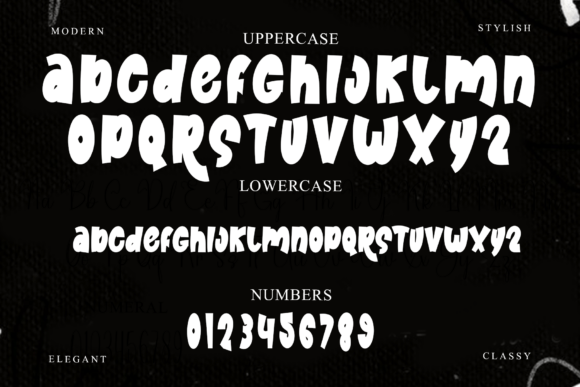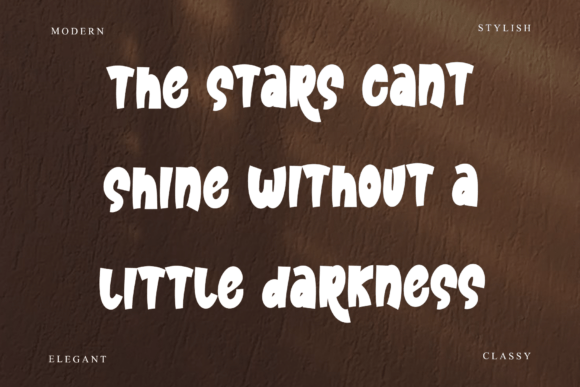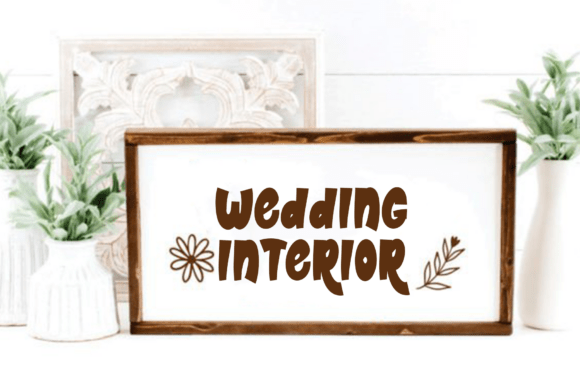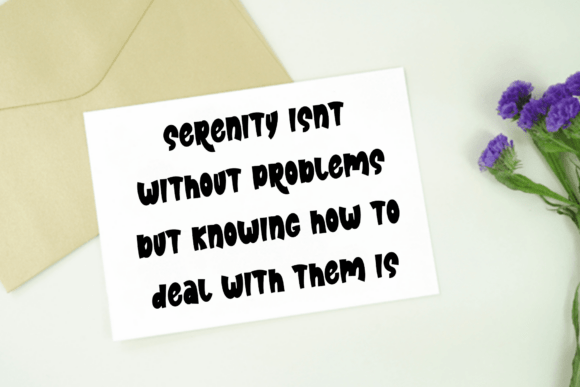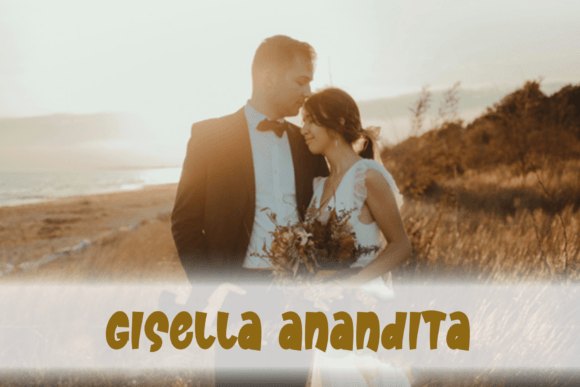
Introducing Course Font: The Perfect Blend of Casual and Creative
Are you tired of using the same old fonts for your personal projects, invitations, and social media graphics? Look no further than Course Font, a charming and creative typeface that exudes warmth and friendliness. With its round, playful strokes, Course Font creates a relaxed and approachable feel that’s perfect for designers and crafters looking to add a personal touch to their work.
The Characteristics of Course Font
Course Font is a hand-drawn font that boasts a unique and fun aesthetic. Its casual and creative design makes it ideal for a wide range of applications, from personal projects and invitations to social media graphics and more. The font’s round, playful strokes create a sense of warmth and approachability, making it perfect for designers and crafters who want to add a personal touch to their work.
What Makes Course Font Special?
Course Font is a versatile font that’s perfect for designers and crafters who want to add a personal touch to their work. Whether you’re creating social media graphics, invitations, or personal projects, Course Font is the perfect choice. Its charming, hand-drawn aesthetic adds a fun and unique touch to any design, making it stand out from the crowd.
Benefits of Using Course Font
- Unique and Creative Design: Course Font boasts a unique and creative design that’s sure to make your work stand out.
- Versatile: Course Font is perfect for a wide range of applications, from personal projects and invitations to social media graphics and more.
- Warm and Friendly Feel: Course Font’s round, playful strokes create a warm and friendly feel that’s perfect for designers and crafters who want to add a personal touch to their work.
Tips and Tricks for Using Course Font
- Experiment with Different Sizes and Colors: Course Font looks great in a wide range of sizes and colors. Experiment with different combinations to find the perfect look for your design.
- Pair with Other Fonts: Course Font pairs well with other fonts, making it easy to create unique and creative designs.
- Use for Headings and Titles: Course Font is perfect for headings and titles, adding a touch of personality and whimsy to your design.
Course Font is a charming and creative typeface that’s perfect for designers and crafters who want to add a personal touch to their work. With its unique and creative design, ease of use, and versatility, Course Font is the perfect choice for a wide range of applications. Whether you’re creating social media graphics, invitations, or personal projects, Course Font is sure to make your work stand out.